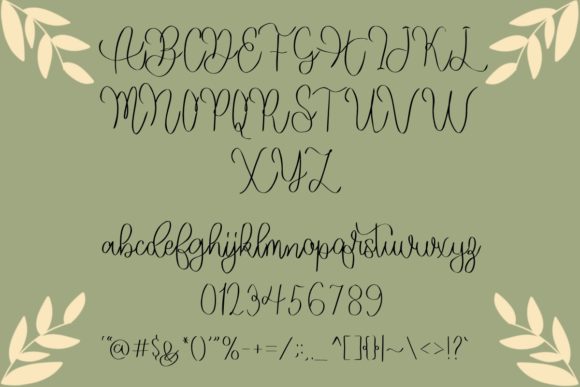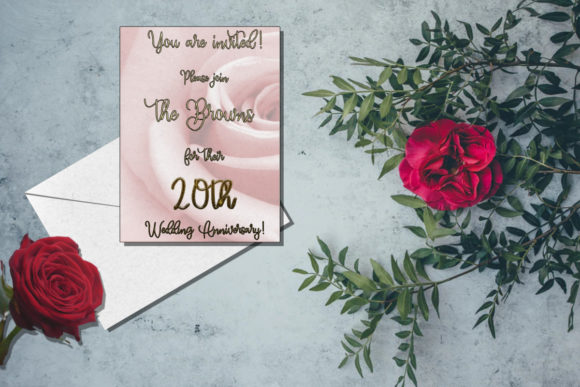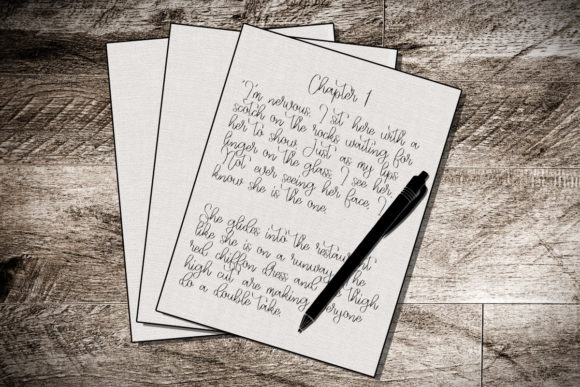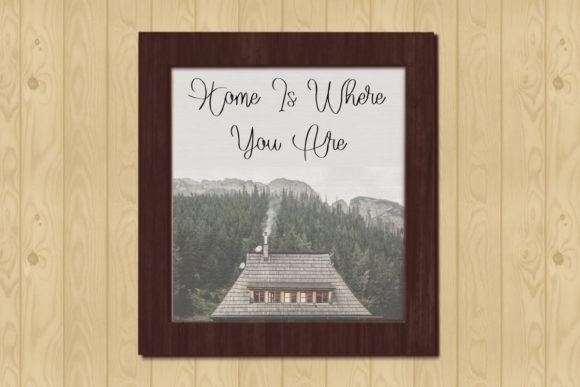
Elegance Font
About Elegance Font
Elegance is a graceful, flowing handwritten font. It’s a perfect accessory to any graphic needing that special handwritten feel to it. The style and swirl to the characters will give your showcase that extra piece of elegance.